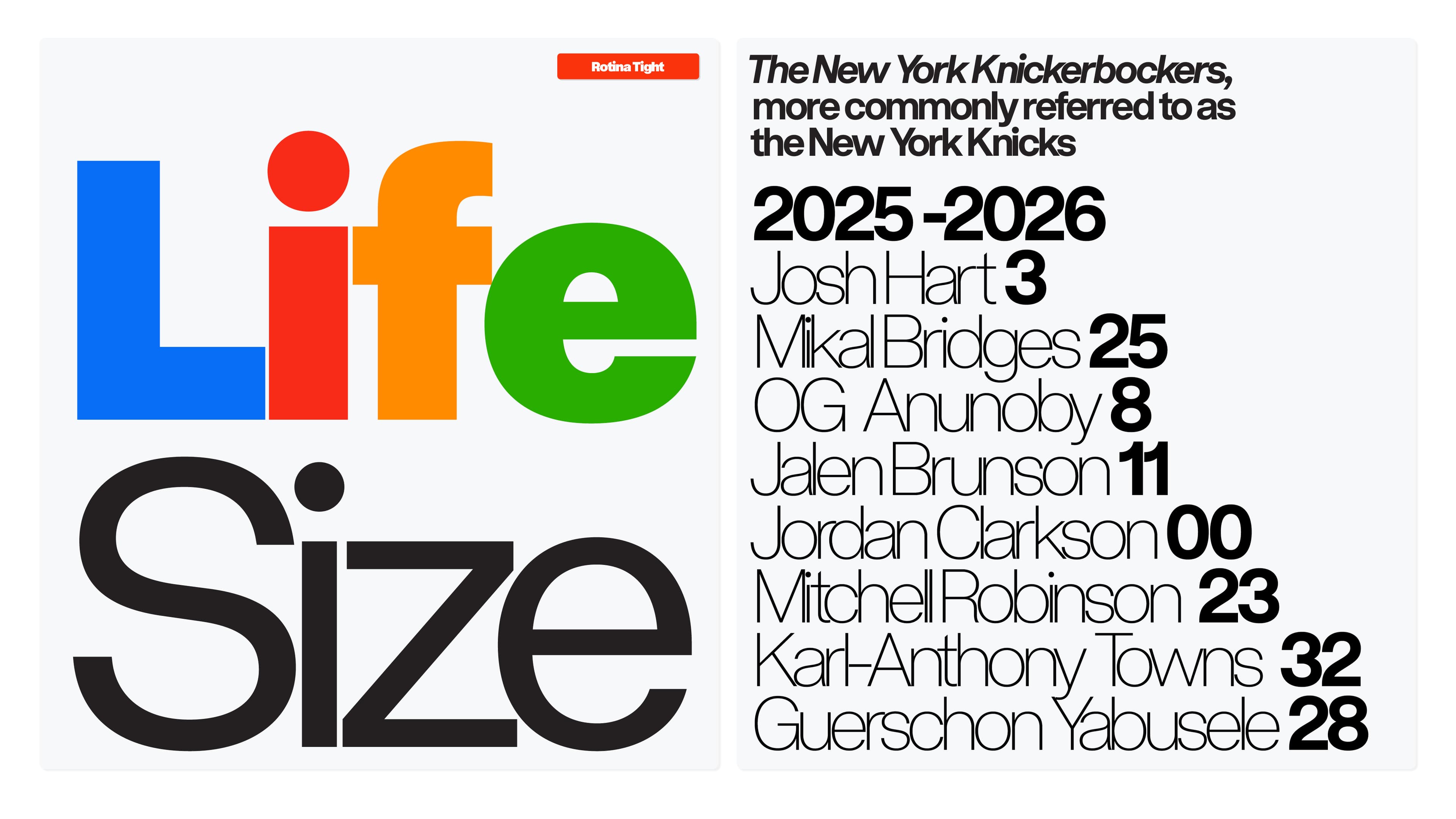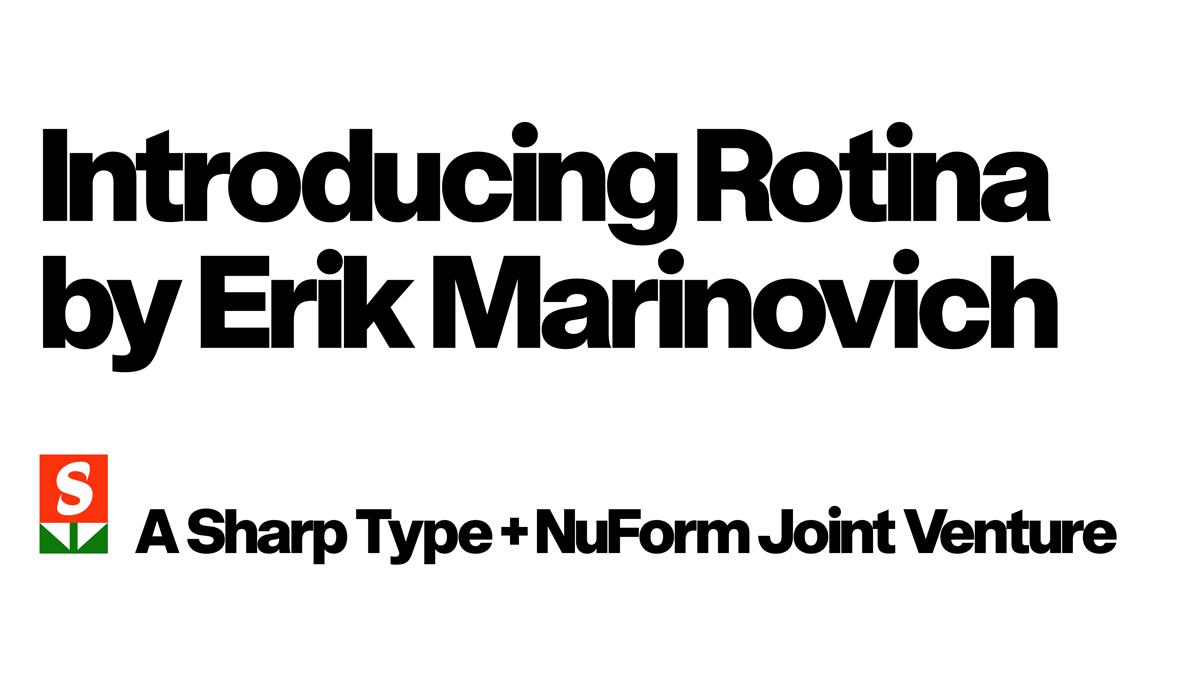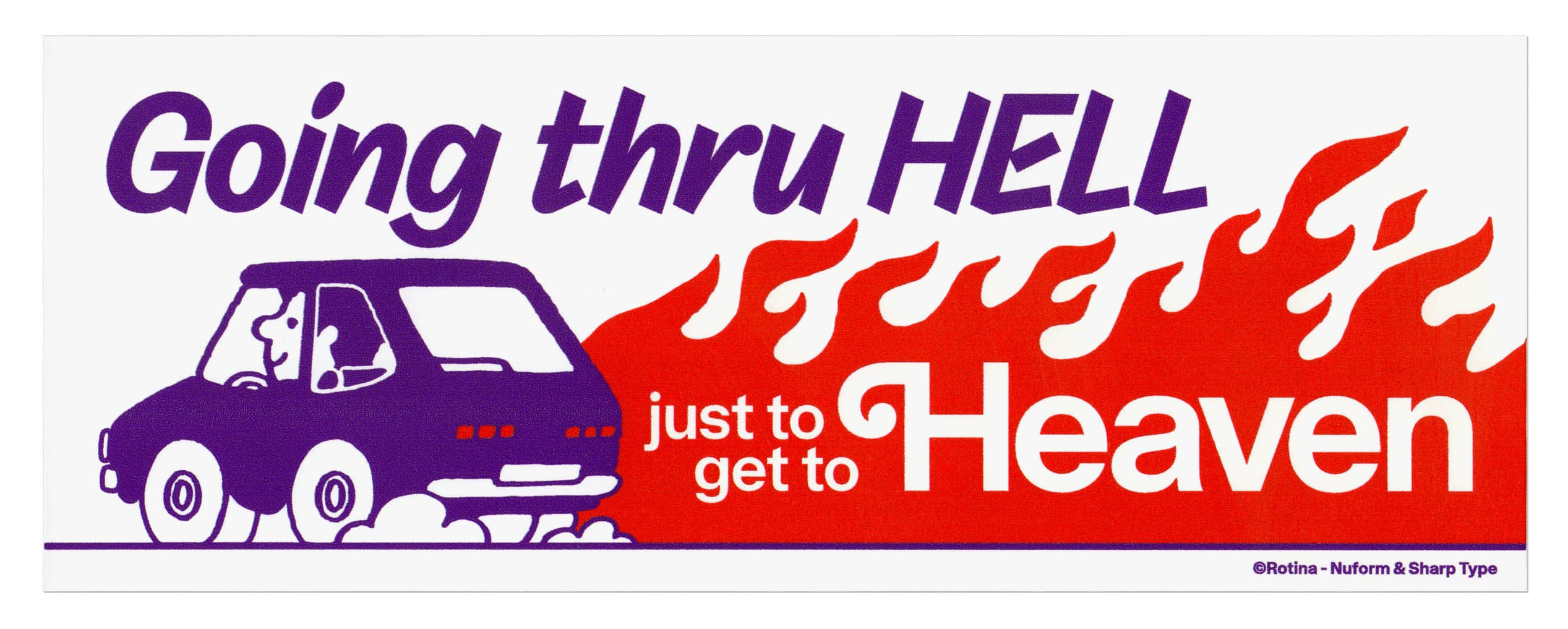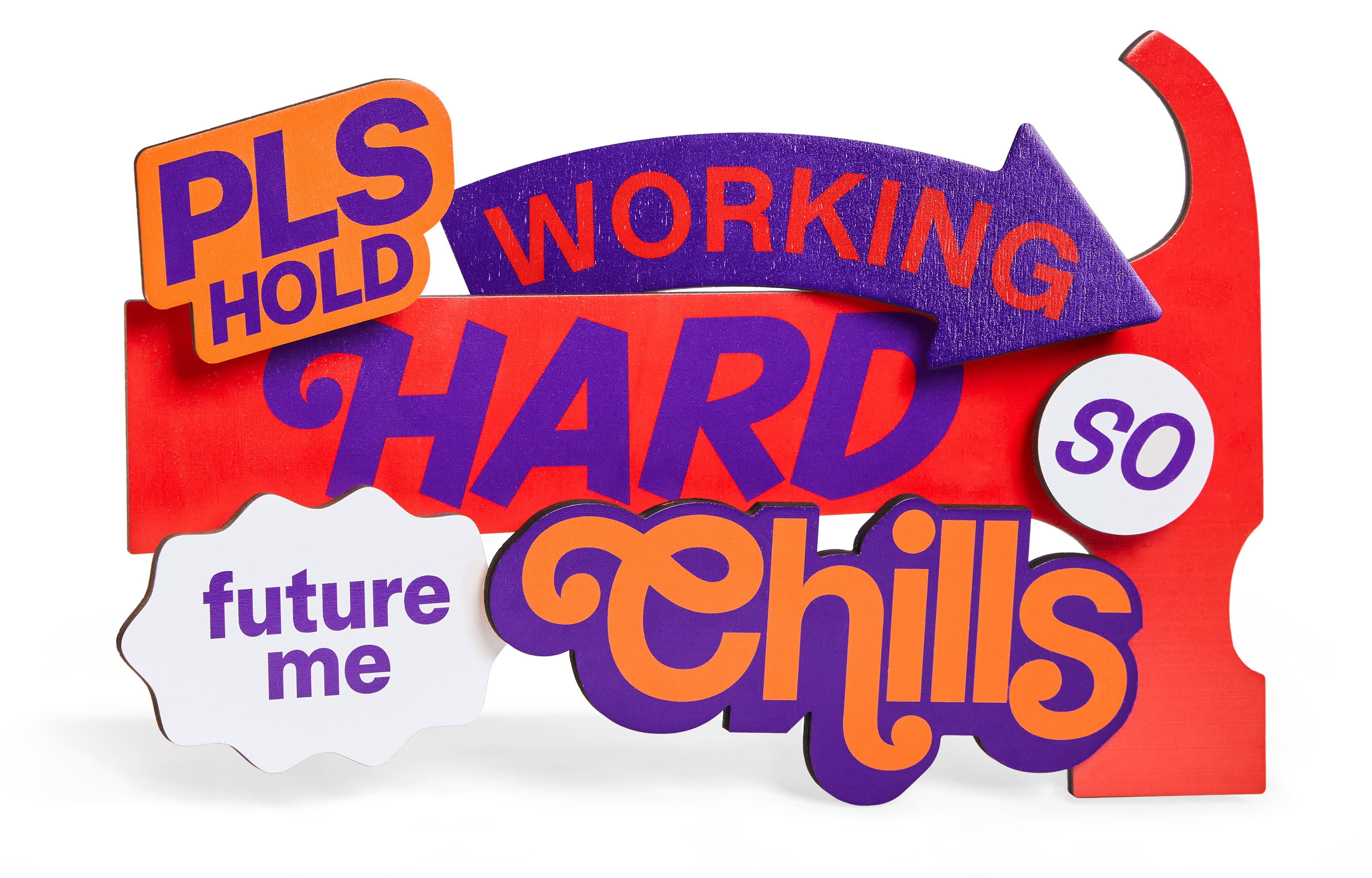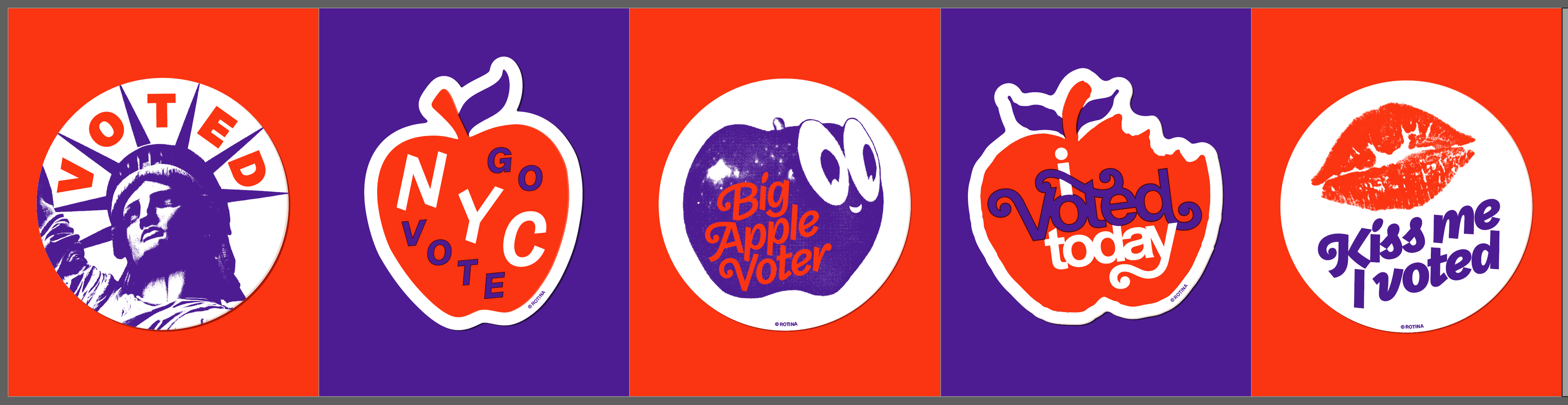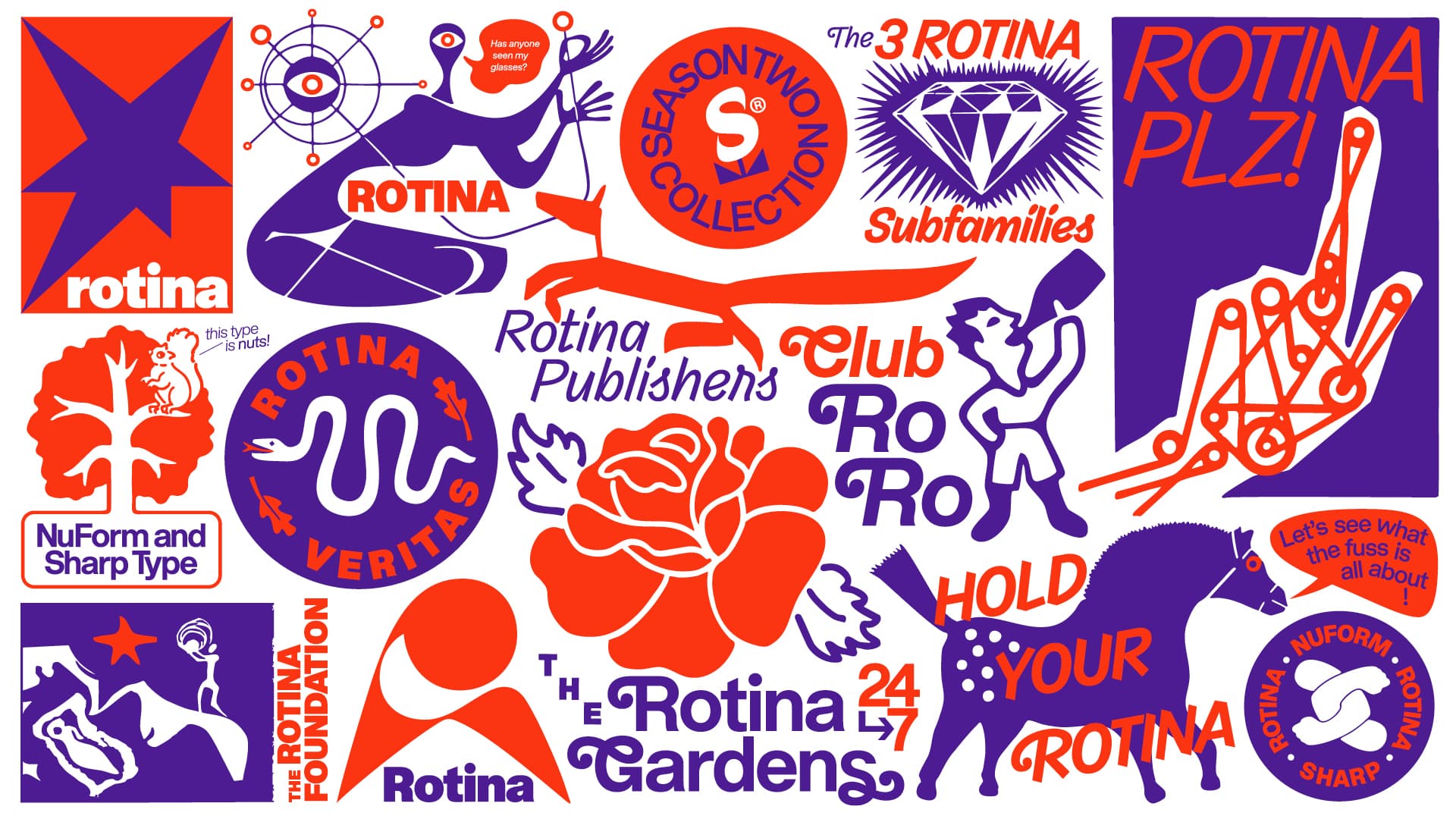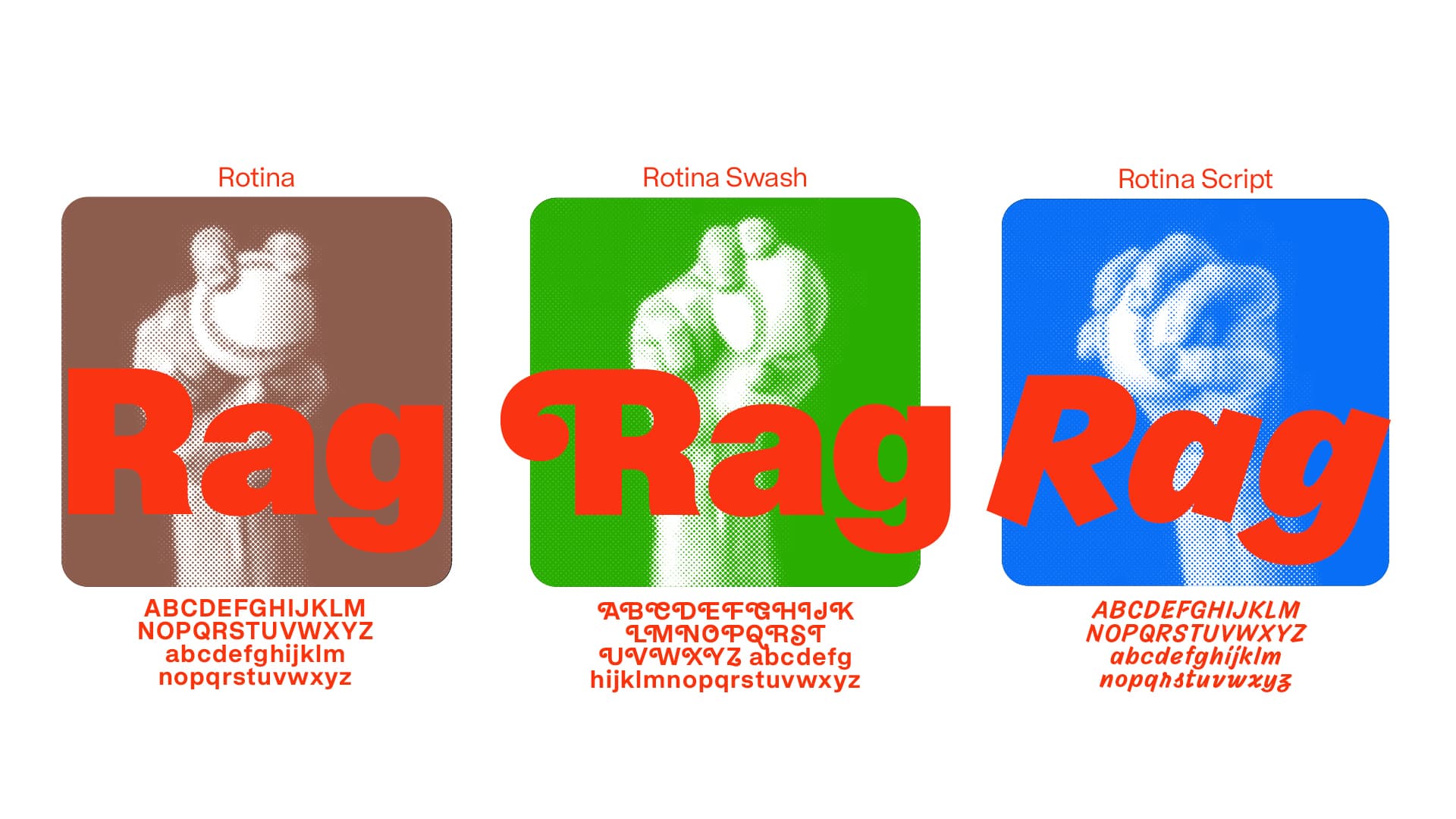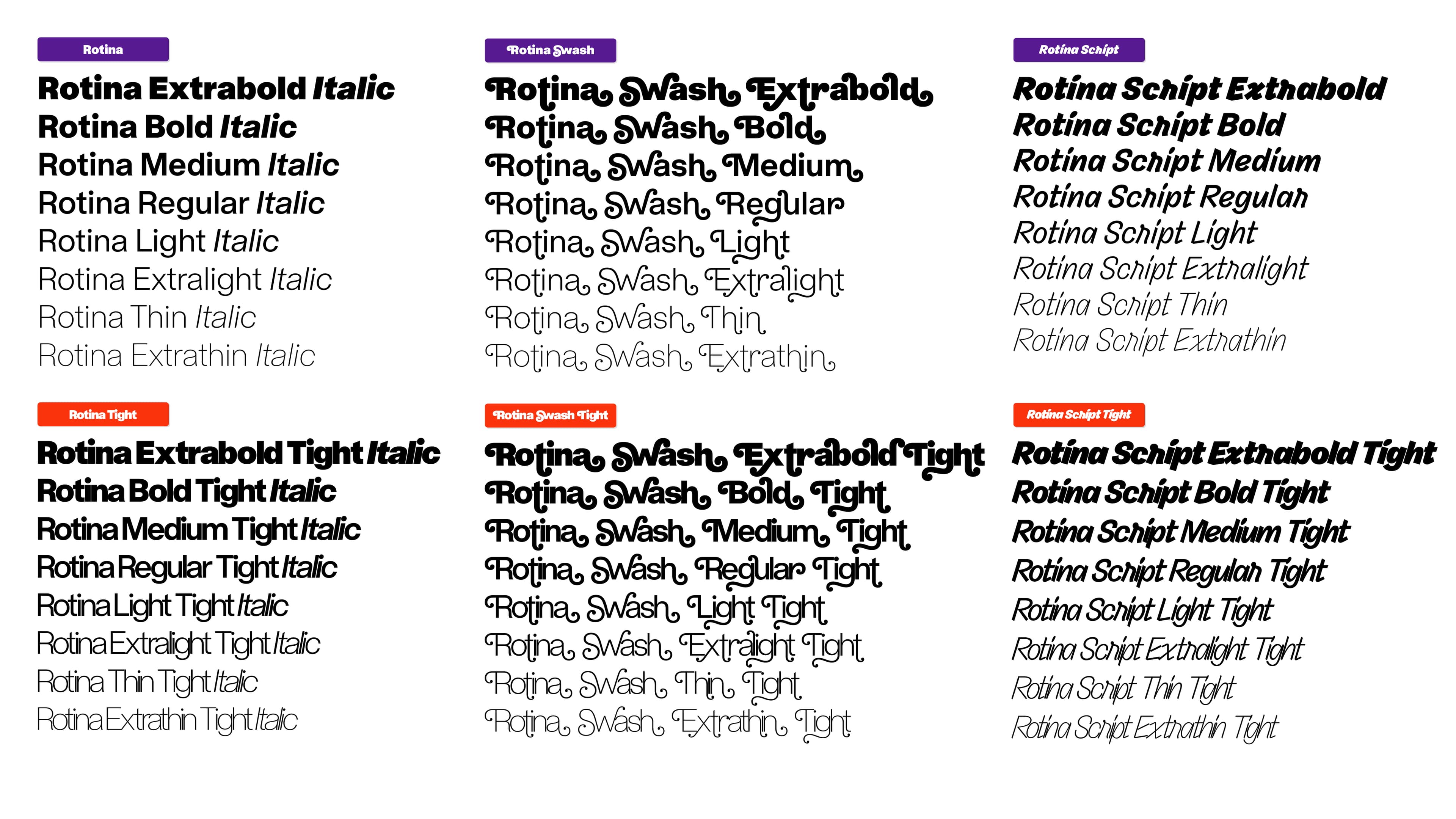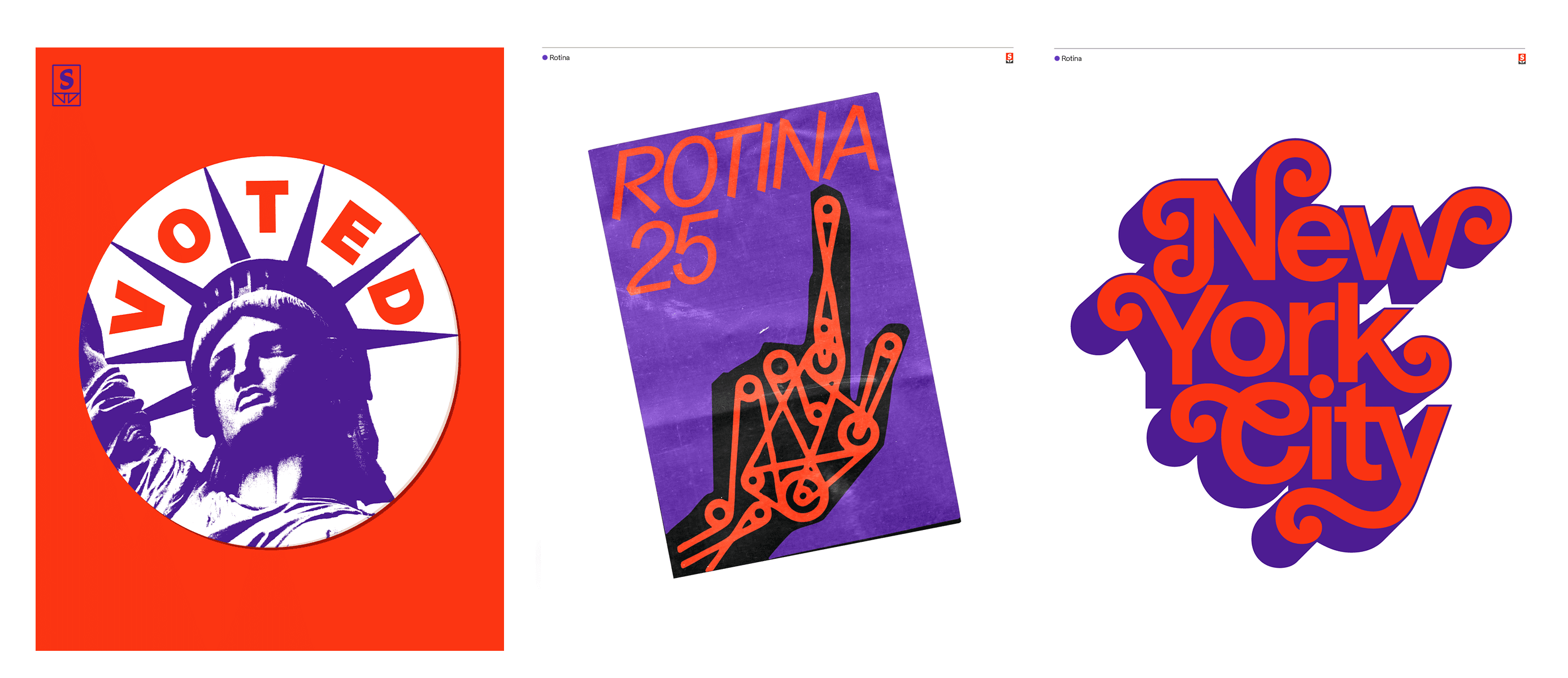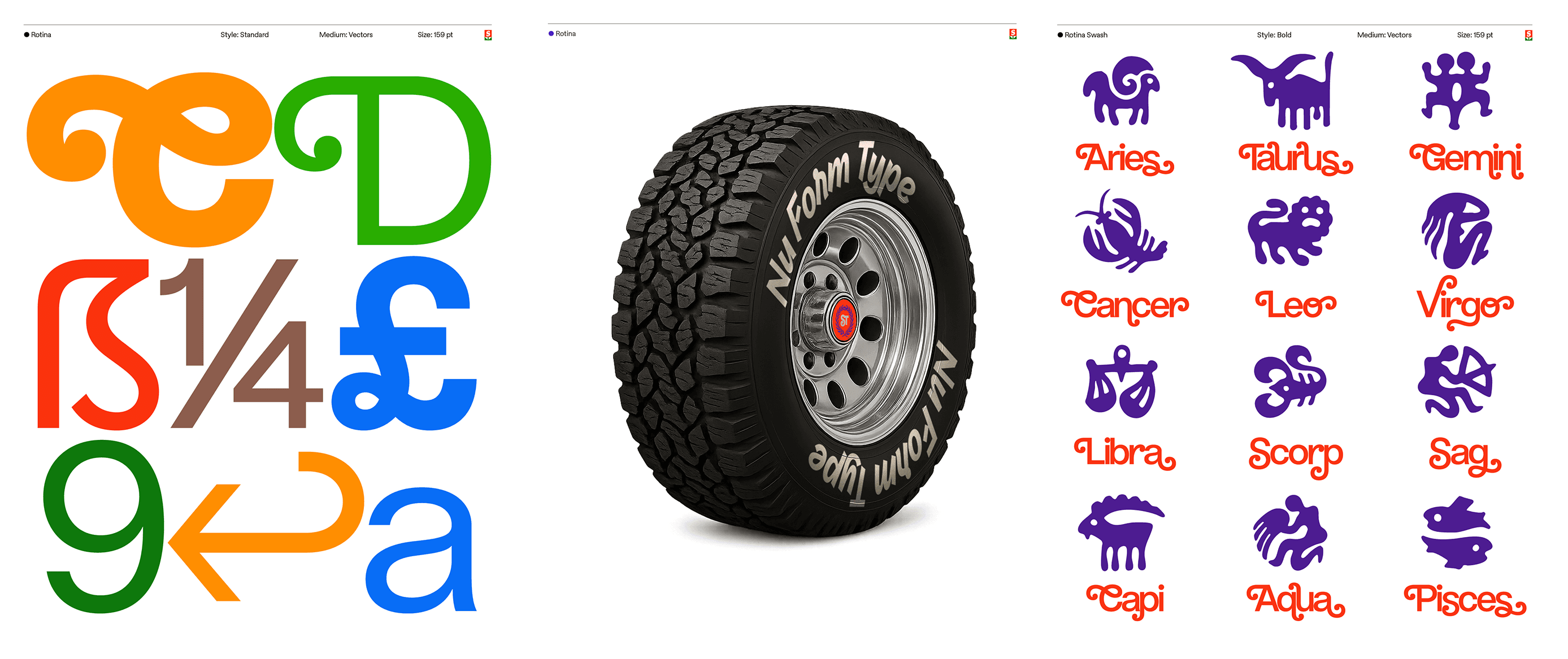
Rotina is a Versatile Workhorse with Swagger
I’m a big fan of Sharp Type and make sure to keep attuned to the team’s releases. Rotina scrolled across my feed around the time of the NYC mayoral election. We had just published an article on how design shapes democracy, featuring Zohran Mamdani’s campaign aesthetics, and how breaking with routine can cut through the noise (and it wasn’t just about the use of color as Cuomo discovered). Rotina caught my eye for the same reasons Mamdani’s campaign brand did: bold forms communicating clearly and urgently, yet full of personality, making civic engagement look fun.
On the surface, Rotina is a reliable and agile modernist sans. The neo-grotesque’s high-contrast legibility and utilitarian sensibility have all the makings of a balanced and comprehensive typeface ideal for translating omnimedia brand systems. But beyond its all-business first impression, Rotina offers a playful surprise. It’s a “workhorse with a wink,” says Sharp Type.
It’s no accident that Rotina has a fun-loving side, with an organic, hand-lettered feel. The typeface was designed by Erik Marinovich, a San Francisco-based designer and lettering artist, in collaboration with Lucas Sharp.
Rotina’s three subfamilies follow the sibling archetypes. Rotina is the upright, rule-following, overachieving eldest child. Rotina Script is the mediator, the middle child who can play a little out of the parental gaze while still getting the job done. Rotina Swash, enabled with OpenType features, is the youngest—a bit rebellious, drawing attention with a little swagger.
A highly functional, close-knit family, Rotina plays together nicely. The tight style offers a tracked display axis (below).
Rotina is a true workhorse, engineered with eight weights and swash capitals (for each style), twelve sets of stylistic alternates, an extensive OmniLatin character set, fun glyphs, and impressive language support.
"Erik and I wanted to create something that could really do it all. It’s built on a solid neo-grotesque foundation for clean body text, but we packed in swash characters and a companion script so you can add personality instantly. Whether you need it buttoned-up or expressive, it’s all there in one family.
- Lucas Sharp